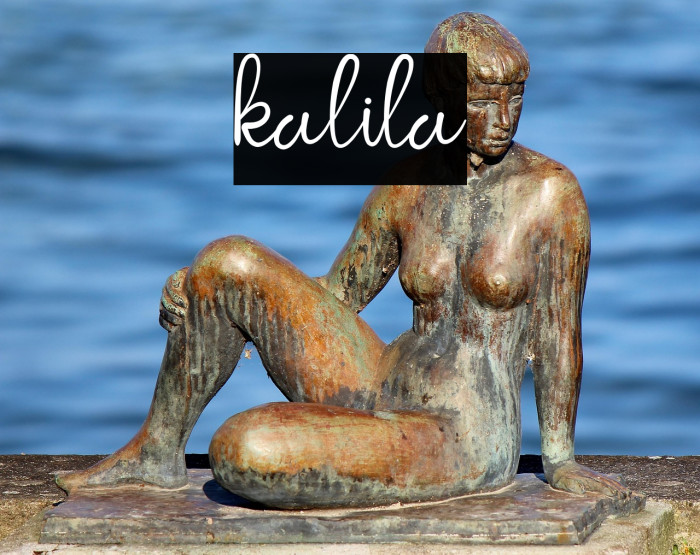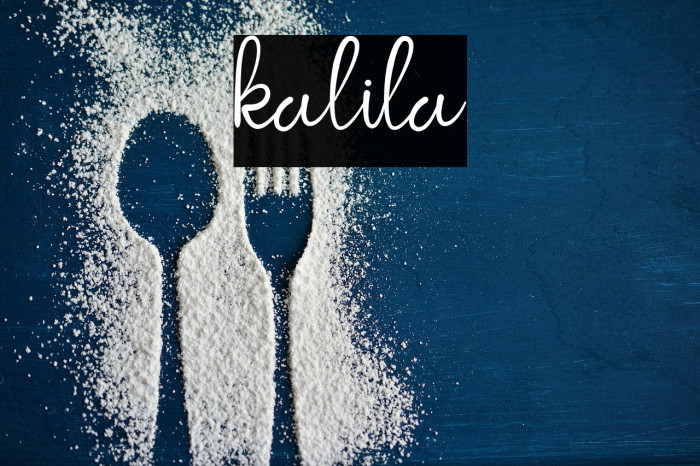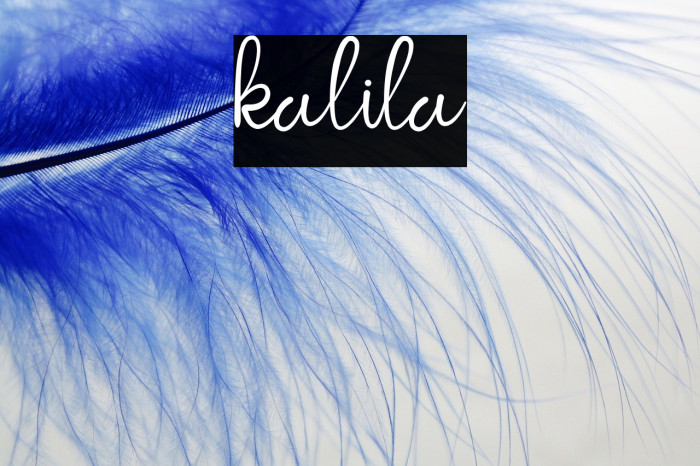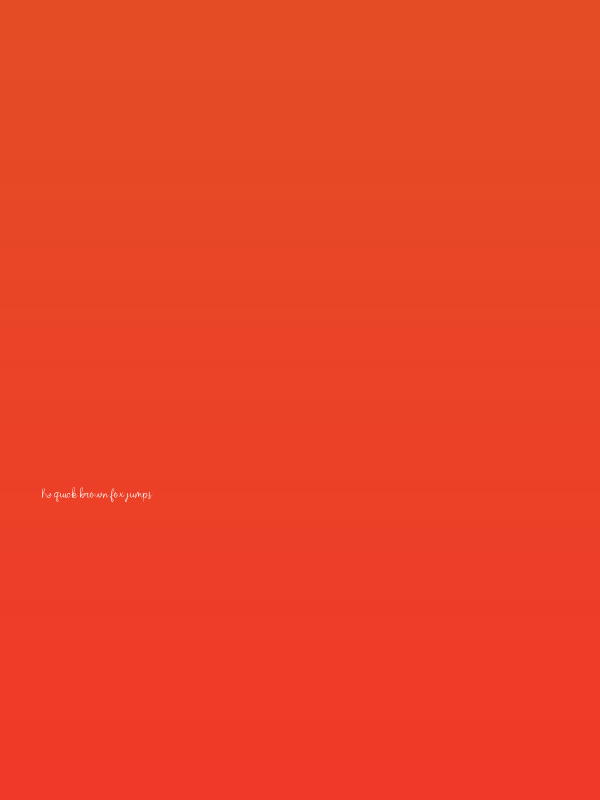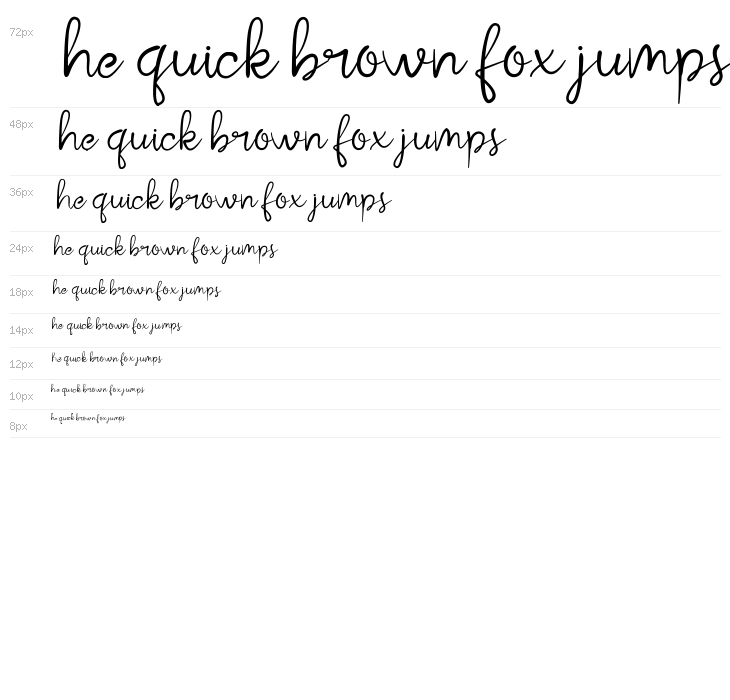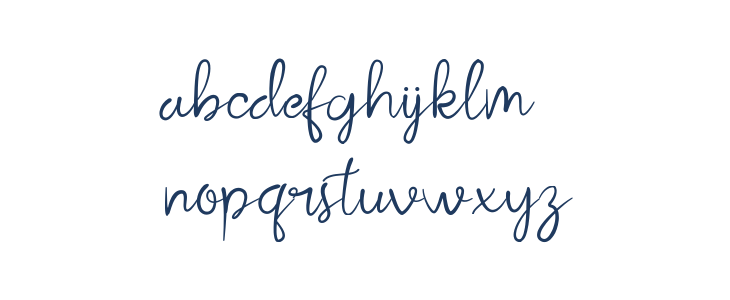
kalila Font
kalila Description
This font features a flowing, cursive style with elegant, sweeping lines that give it a handwritten appearance. The letters are connected, creating a smooth and continuous script. The strokes vary in thickness, adding a dynamic and lively feel to the text. The overall look is both sophisticated and approachable, making it suitable for a variety of creative projects. The lowercase letters have a playful bounce, while the uppercase letters maintain a graceful presence.
| Overall Style | Elegant, Handwritten |
| Proposed Projects | Ideal for wedding invitations, greeting cards, personal branding, and social media graphics. |